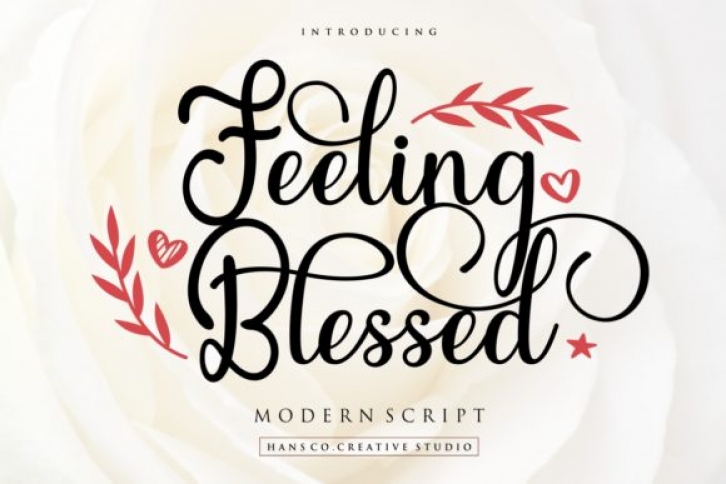
Feeling Blessed is a beautiful and modern script font. It features an incredibly classic style, while still keeping a friendly feel. Feeling Blessed is the perfect font for making original and outstanding designs.